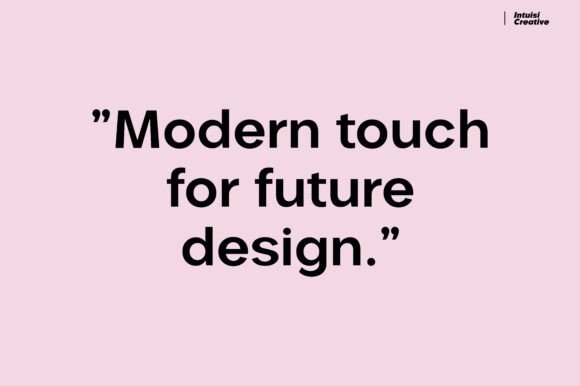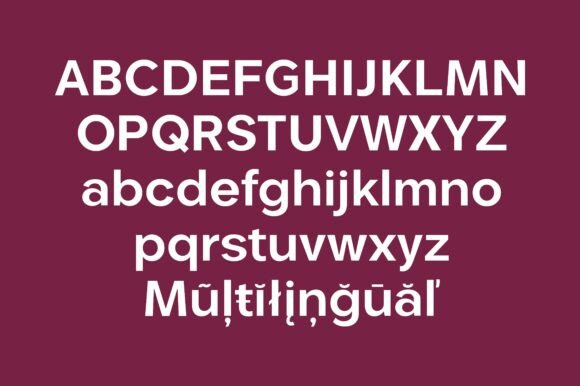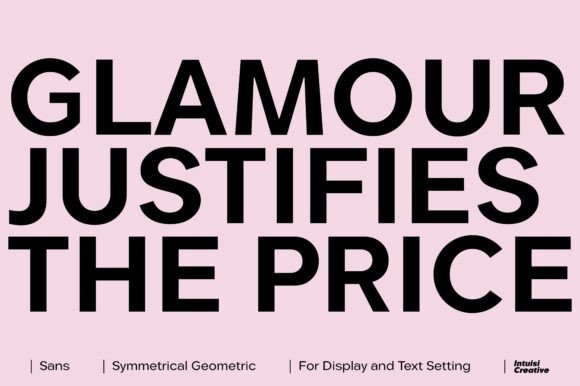
Discover the Timeless Elegance of Glamure Font: Elevate Your Designs with Sophistication
In the world of typography, few fonts manage to capture the essence of timeless balance and sophistication as effortlessly as Glamure Semi Bold. This beautifully structured geometric sans-serif font is a masterpiece of modern design, blending the clean lines and perfectly proportioned letterforms of mid-century modernist architecture with the luxurious feel of contemporary editorial branding. Whether you’re a designer looking for the perfect font for your next project or a crafter seeking to add a touch of elegance to your creations, Glamure Semi Bold is an exceptional choice.
The Characteristics of Glamure Semi Bold
Glamure Semi Bold is distinguished by its unique characteristics, which set it apart from other fonts in the geometric sans-serif category. Its clean, perfectly proportioned letterforms are marked by a uniform stroke weight, wide circular curves, and crisp geometric cuts. These features combine to create a font that exudes a sense of symmetry and sophistication, making it ideal for designs that require a touch of luxury and refinement.
One of the standout features of Glamure Semi Bold is its solid structural weight, which gives it a confident and neutral personality. This makes it an incredibly versatile font, suitable for a wide range of applications, from corporate identities and premium fashion branding to minimalist editorial text layouts and high-impact social media headers.
Applications of Glamure Semi Bold
Glamure Semi Bold is a premier choice for designers and crafters looking to infuse their work with a sense of timeless elegance and sophistication. Here are just a few examples of how this exceptional font can be used:
- Independent Design Studio Corporate Identities: Glamure Semi Bold’s solid structural weight and confident personality make it an excellent choice for design studios looking to establish a strong brand identity.
- Premium Fashion Branding: The font’s luxurious feel and sophisticated aesthetic make it perfect for high-end fashion brands seeking to convey a sense of elegance and refinement.
- Minimalist Editorial Text Layouts: Glamure Semi Bold’s clean lines and perfectly proportioned letterforms make it an excellent choice for editorial designs that require a touch of sophistication and elegance.
- High-Impact Social Media Headers: The font’s crisp geometric cuts and wide circular curves make it ideal for social media headers that need to make a lasting impression.
Why Choose Glamure Semi Bold?
So why choose Glamure Semi Bold over other fonts in the geometric sans-serif category? Here are just a few reasons:
- Timeless Elegance: Glamure Semi Bold’s unique blend of mid-century modernist architecture and contemporary luxury editorial branding gives it a timeless elegance that will never go out of style.
- Versatility: The font’s solid structural weight and neutral personality make it suitable for a wide range of applications, from corporate identities to social media headers.
- Sophistication: Glamure Semi Bold’s clean lines, perfectly proportioned letterforms, and crisp geometric cuts give it a sophisticated aesthetic that’s perfect for designs that require a touch of luxury and refinement.
| Font Name | Glamure Font |
| Author | IntuisiCreative |
In conclusion, Glamure Semi Bold is an exceptional font that offers designers and crafters a unique opportunity to infuse their work with timeless elegance and sophistication. Its beautifully structured geometric sans-serif design, combined with its solid structural weight and neutral personality, make it a premier choice for a wide range of applications. Whether you’re looking to establish a strong brand identity, convey a sense of luxury and refinement, or simply add a touch of sophistication to your designs, Glamure Semi Bold is an excellent choice.